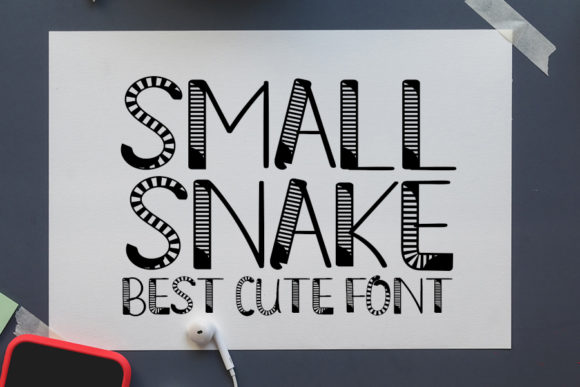
Step into the realm of Small Snake, a playful and charming display font that will enchant your designs with its infectious personality. This captivating typeface effortlessly dances between elegance and whimsy, making it the ultimate choice for those seeking to infuse their creations with a touch of the extraordinary.
With its distinctive curves and spirited flow, Small Snake is a visual masterpiece that will elevate your web presence to new heights. Its versatility knows no bounds, seamlessly adapting to a myriad of design projects, from captivating website headlines to eye-catching social media posts.
Immerse yourself in the delightful nuances of Small Snake, where each letterform embodies a playful spirit that will captivate your audience. Whether you seek to convey a message of joy, adventure, or simply a hint of the unexpected, this font will effortlessly translate your vision into a visually stunning reality.
Indulge in the whimsical charm of Small Snake today and experience the transformative power of a font that will ignite your creativity and leave an unforgettable mark on all who encounter it.